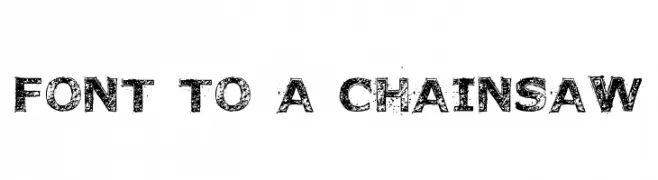
A bold, distressed font with a vintage, textured appearance.
A bold, distressed font with a grunge, industrial style.
A bold, distressed font with a grunge, textured style.
A bold, distressed font with a rugged, industrial appearance.
A bold, distressed font with a grunge aesthetic and rugged texture.
A bold, distressed font with a grunge texture and rugged appearance.
A distressed, vintage-style font with a worn, gritty texture.